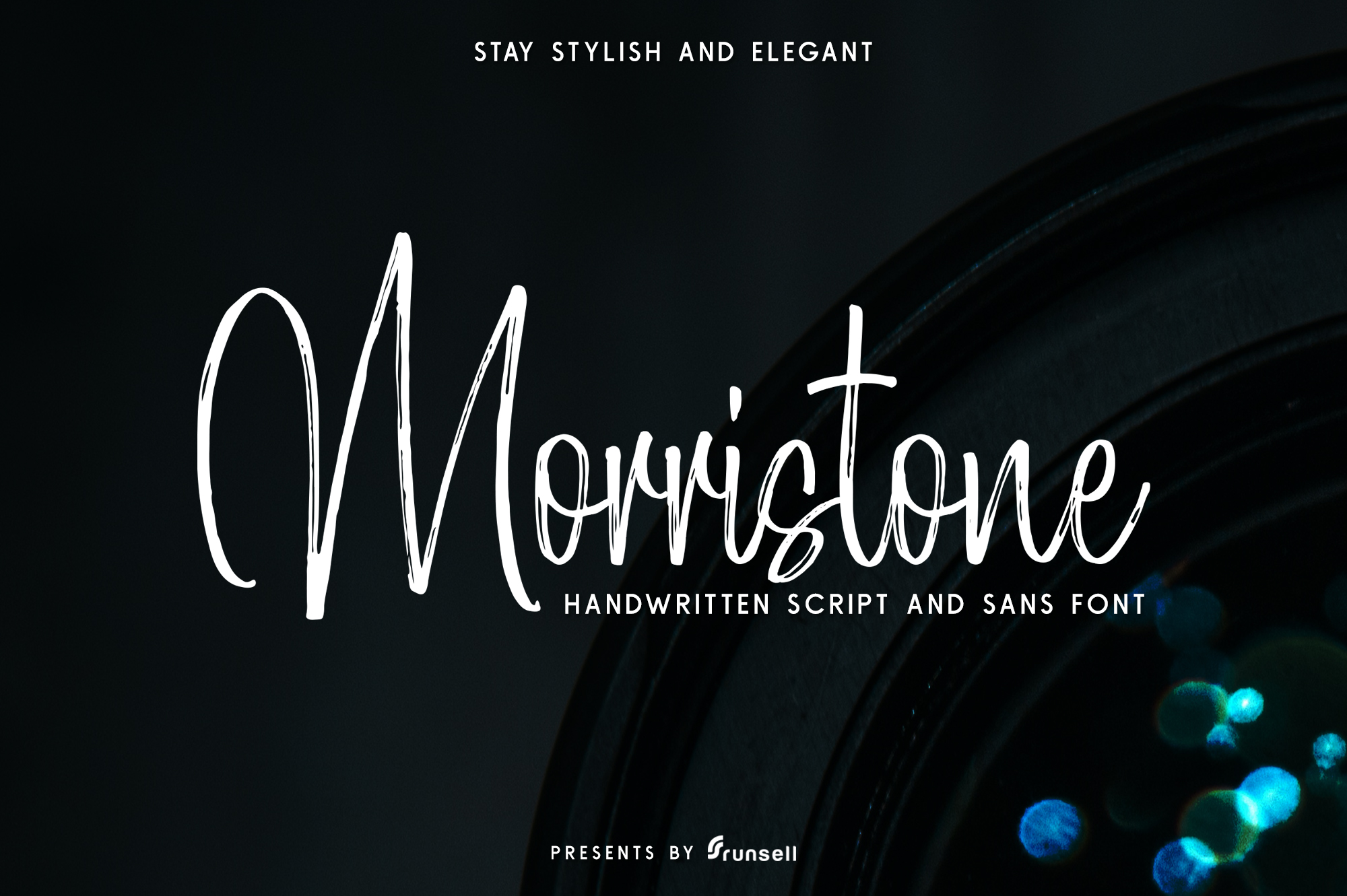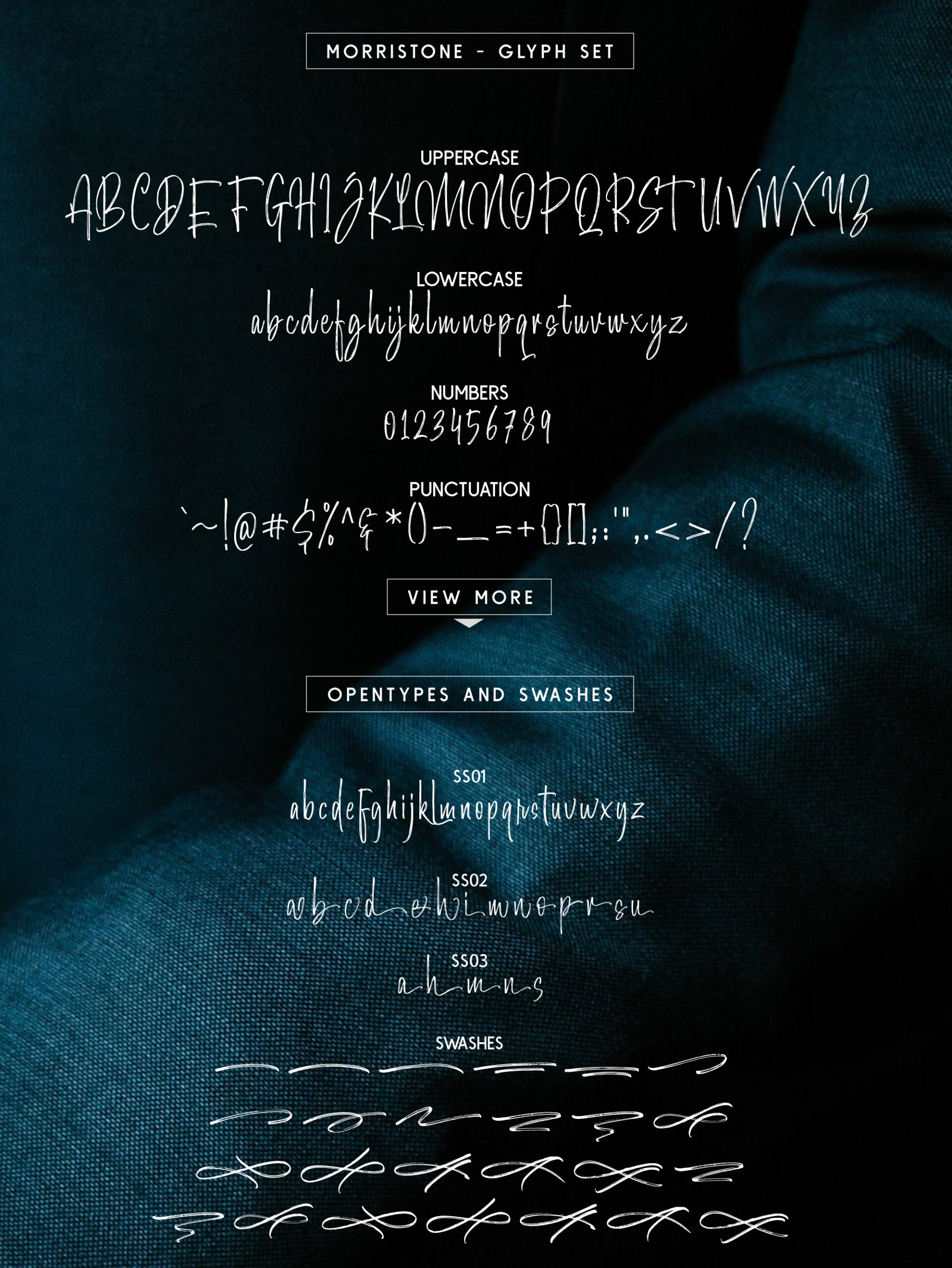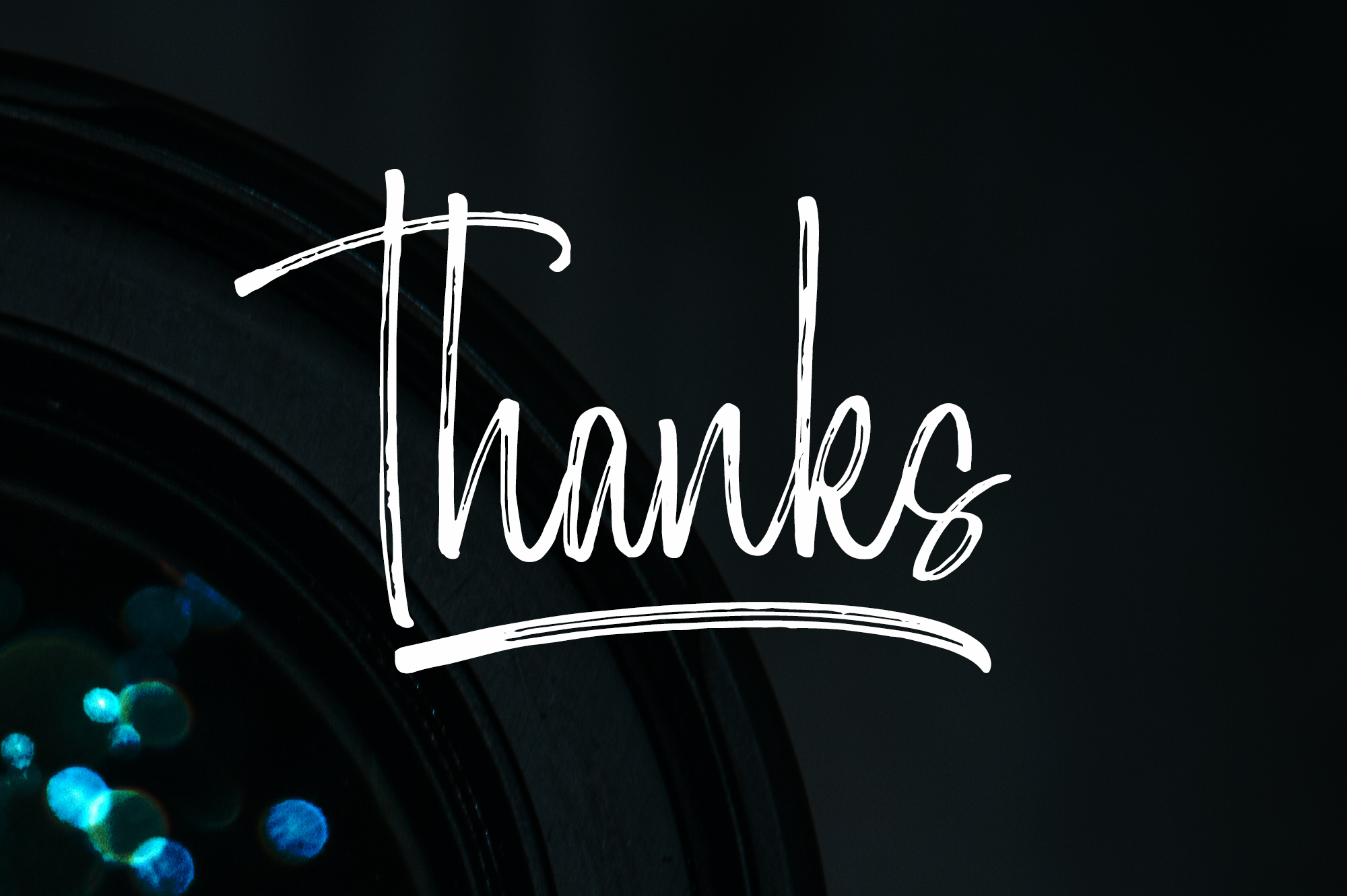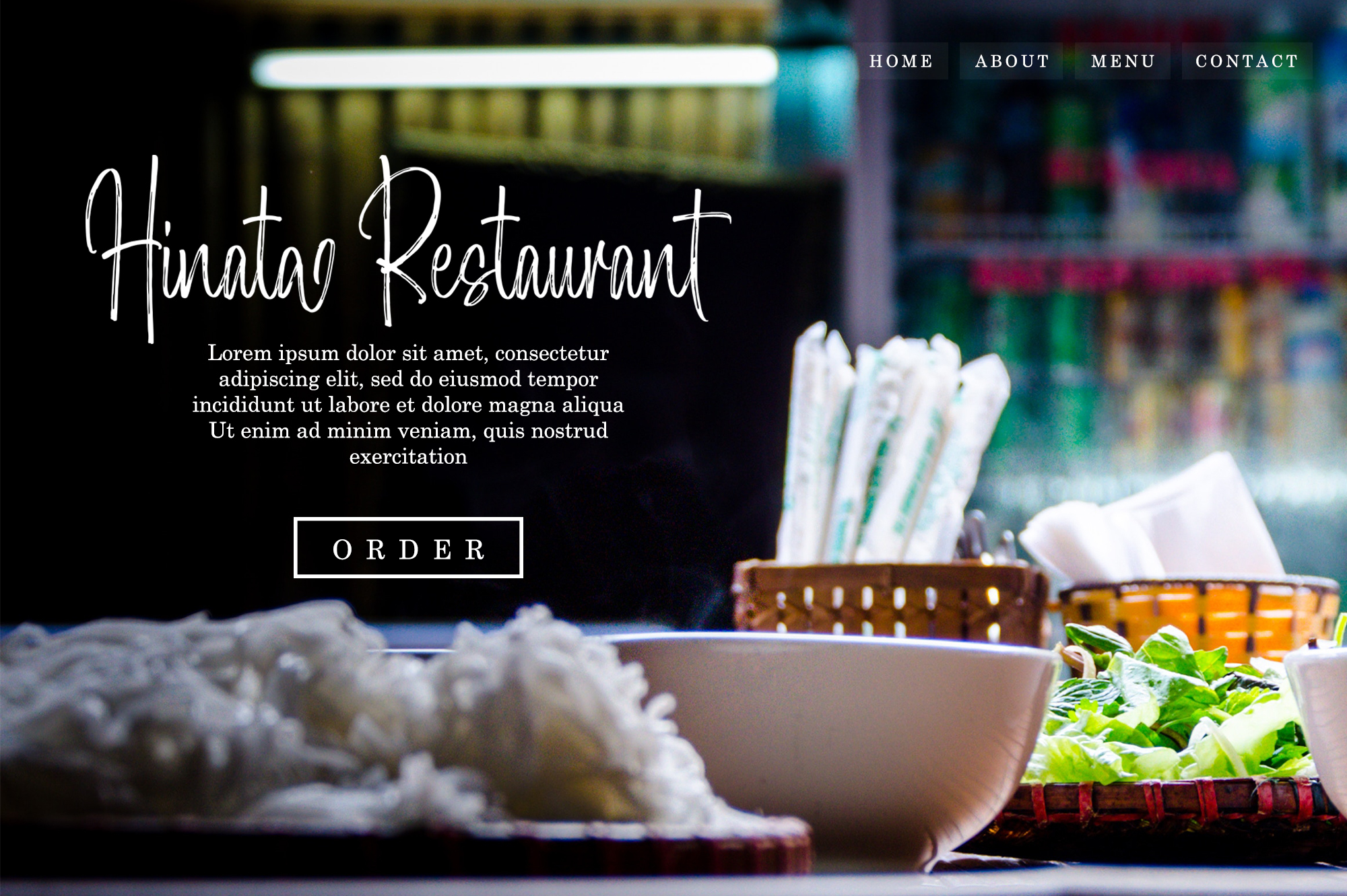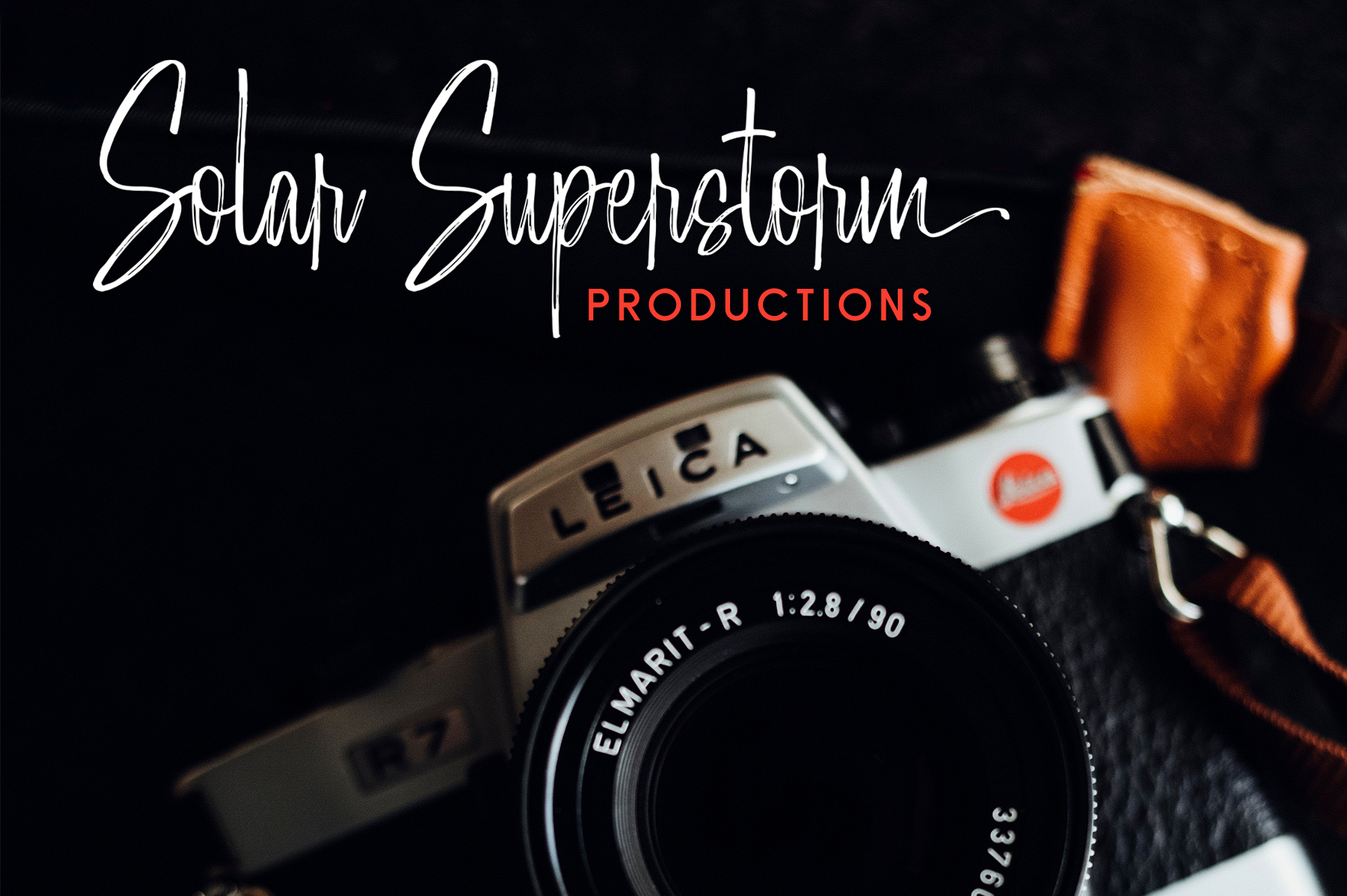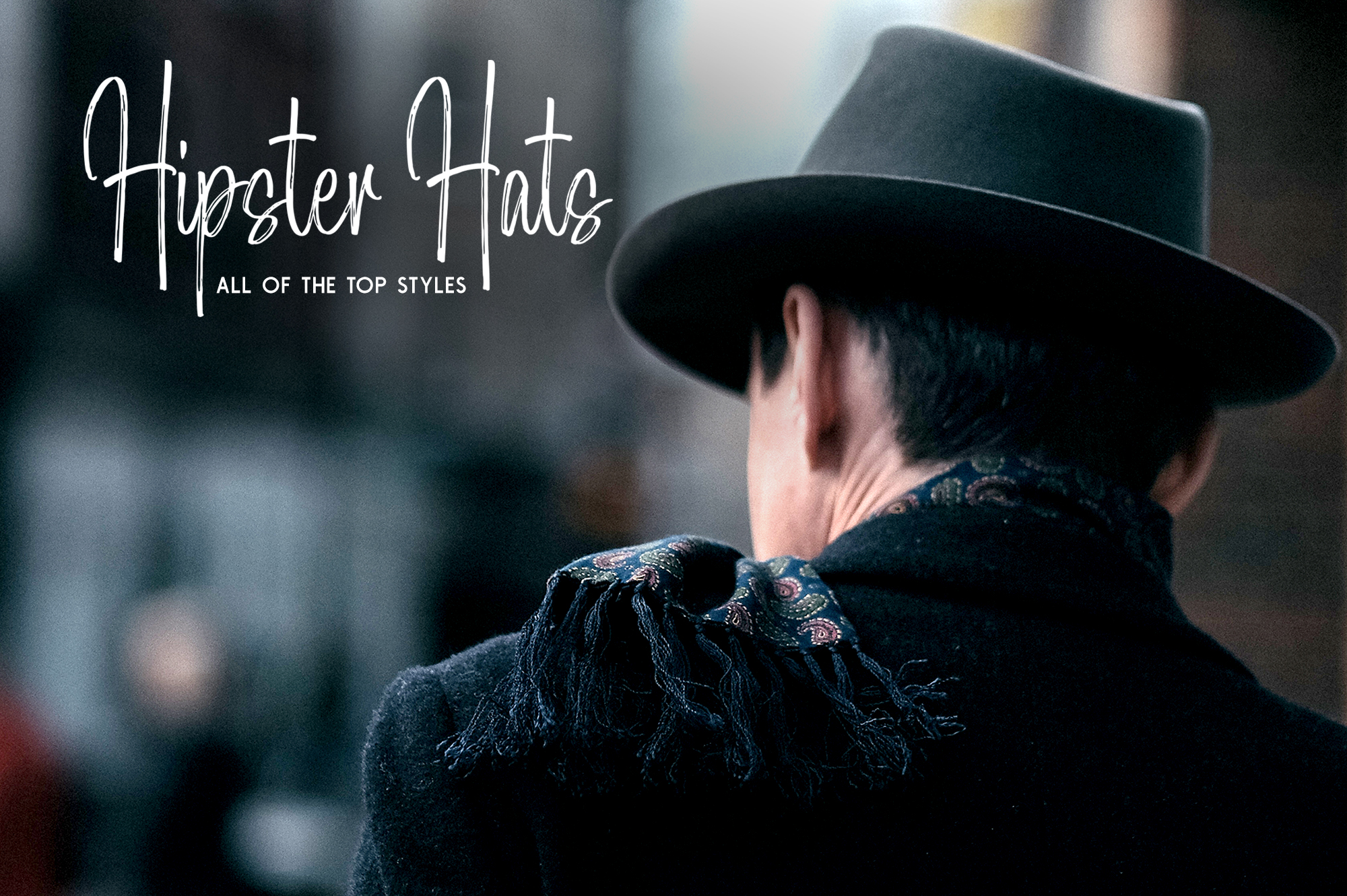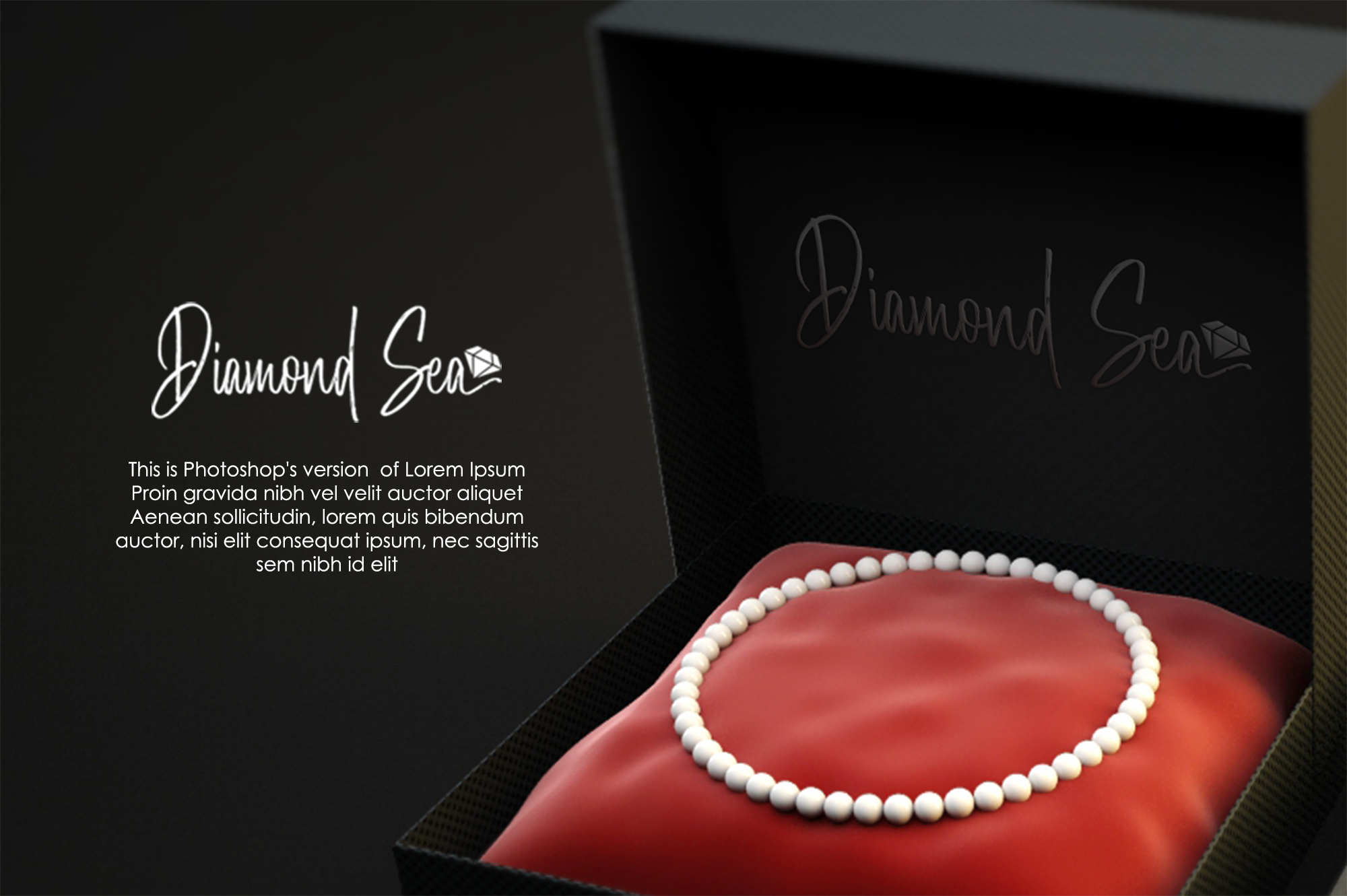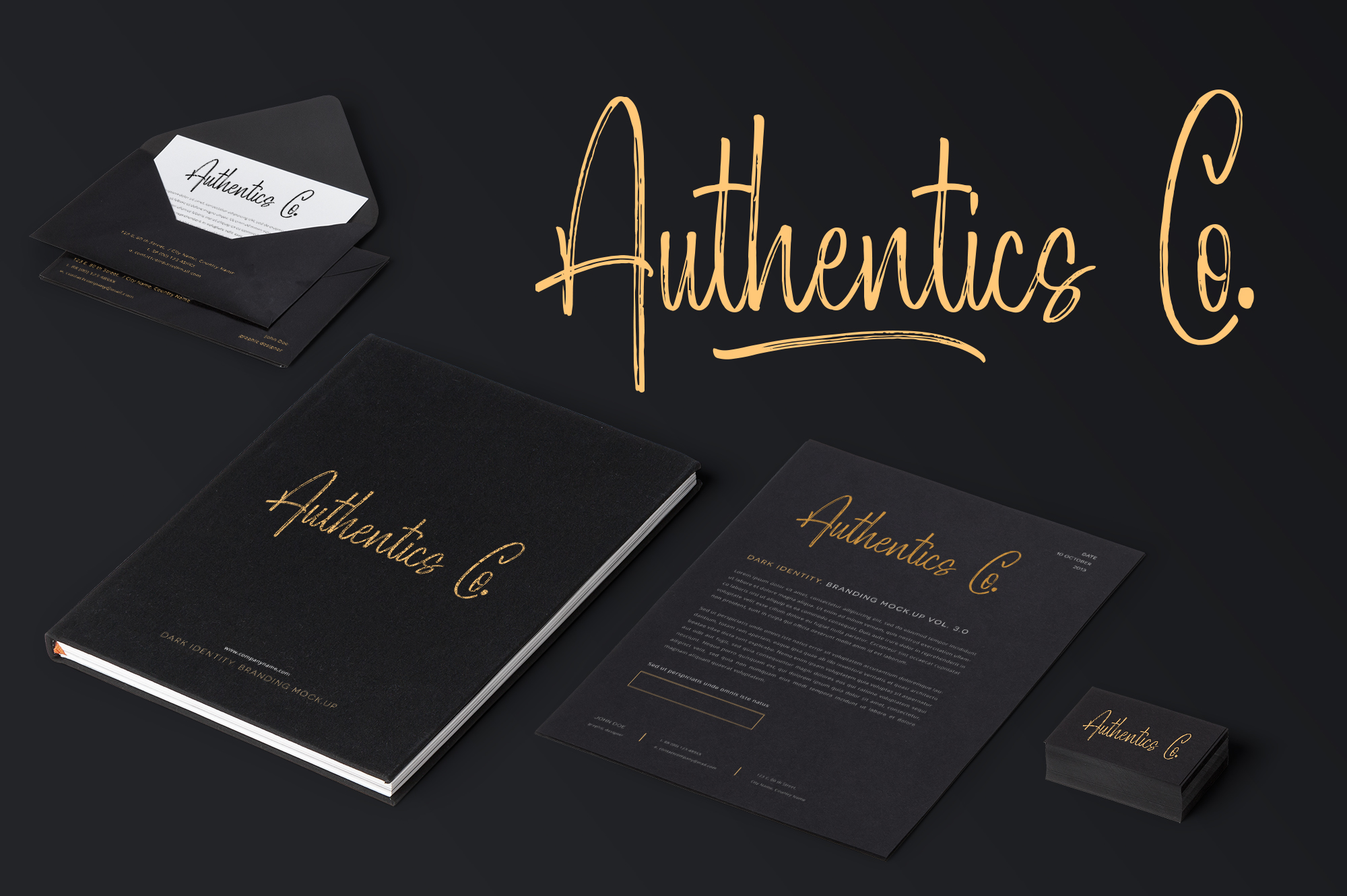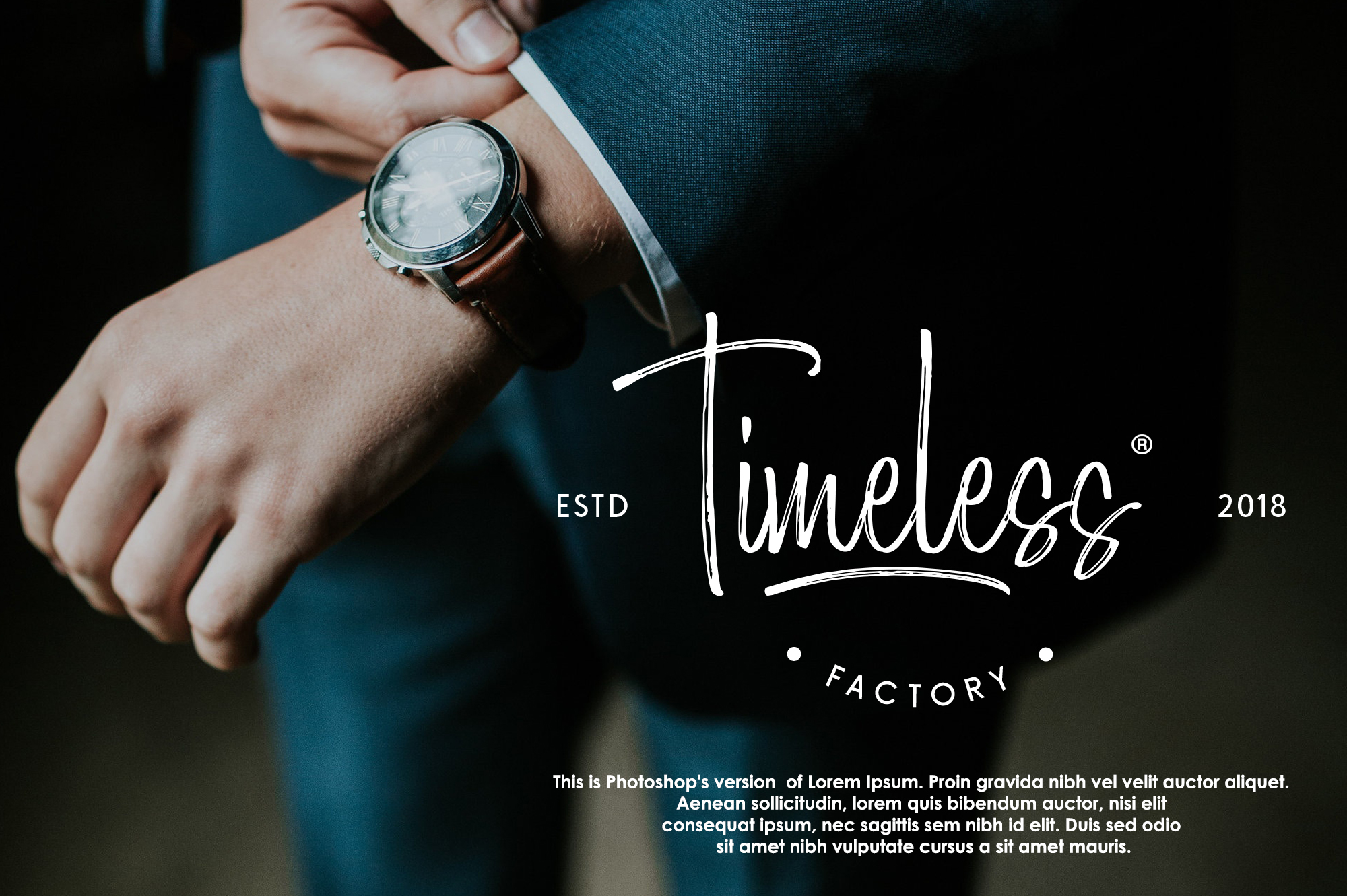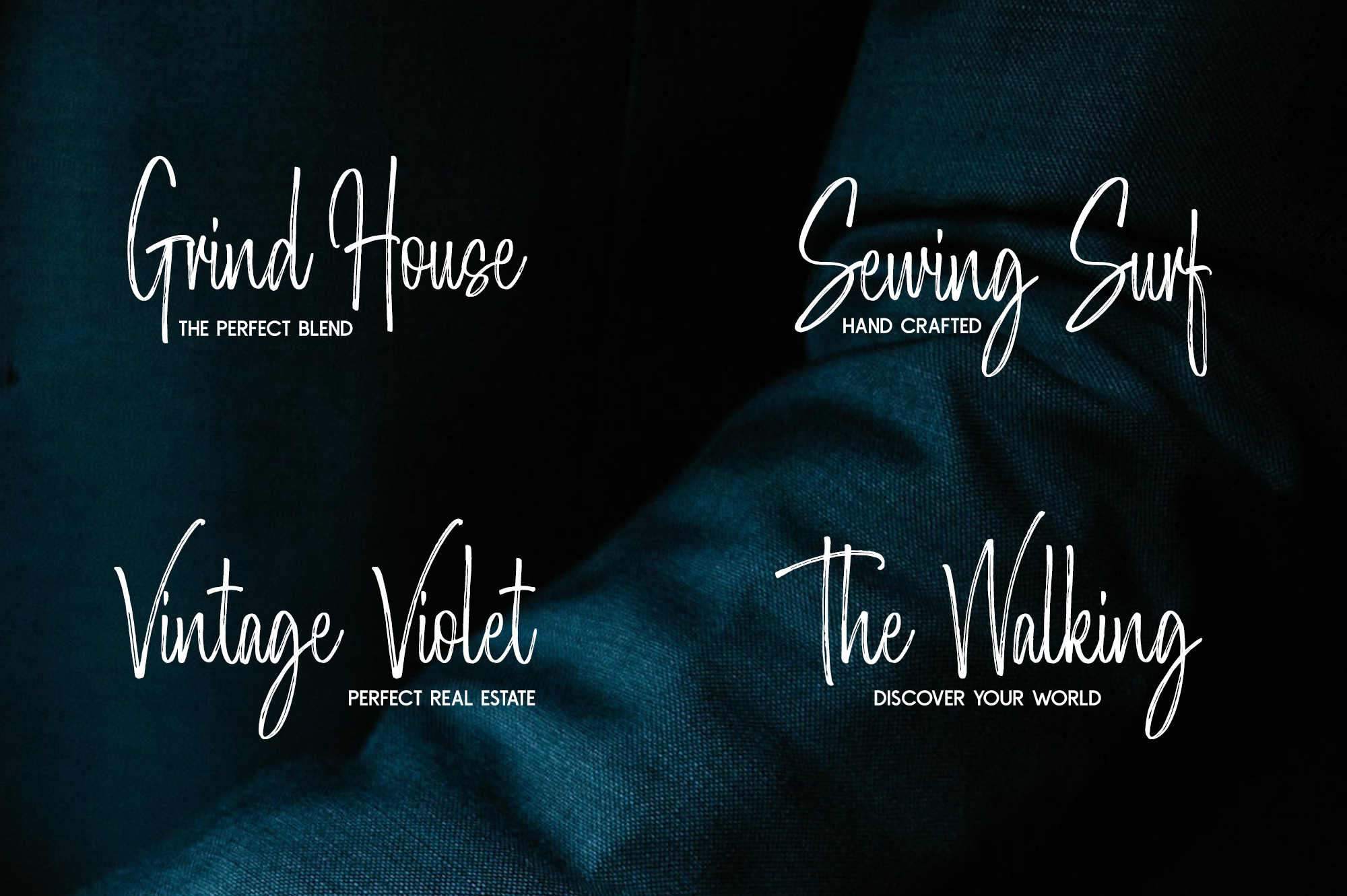
Morristone Font
About Morristone Font
Morristone is a complementary font duo; with a signature look and natural flow, this combination can make your design look authentic and handcrafted given its textured brush look and high impact style.